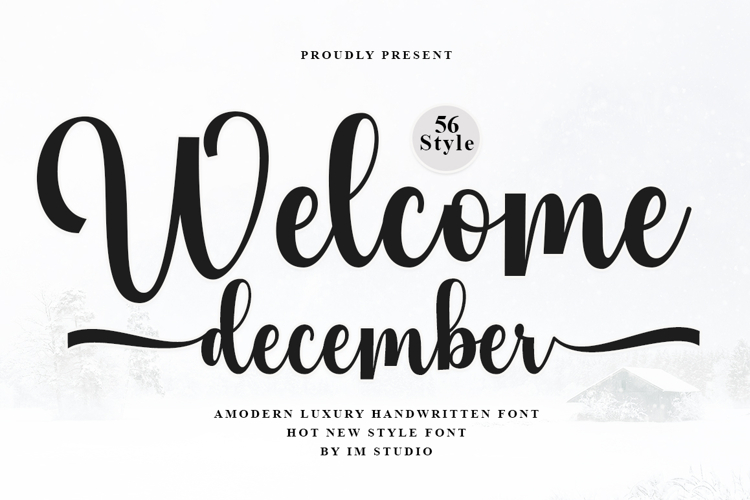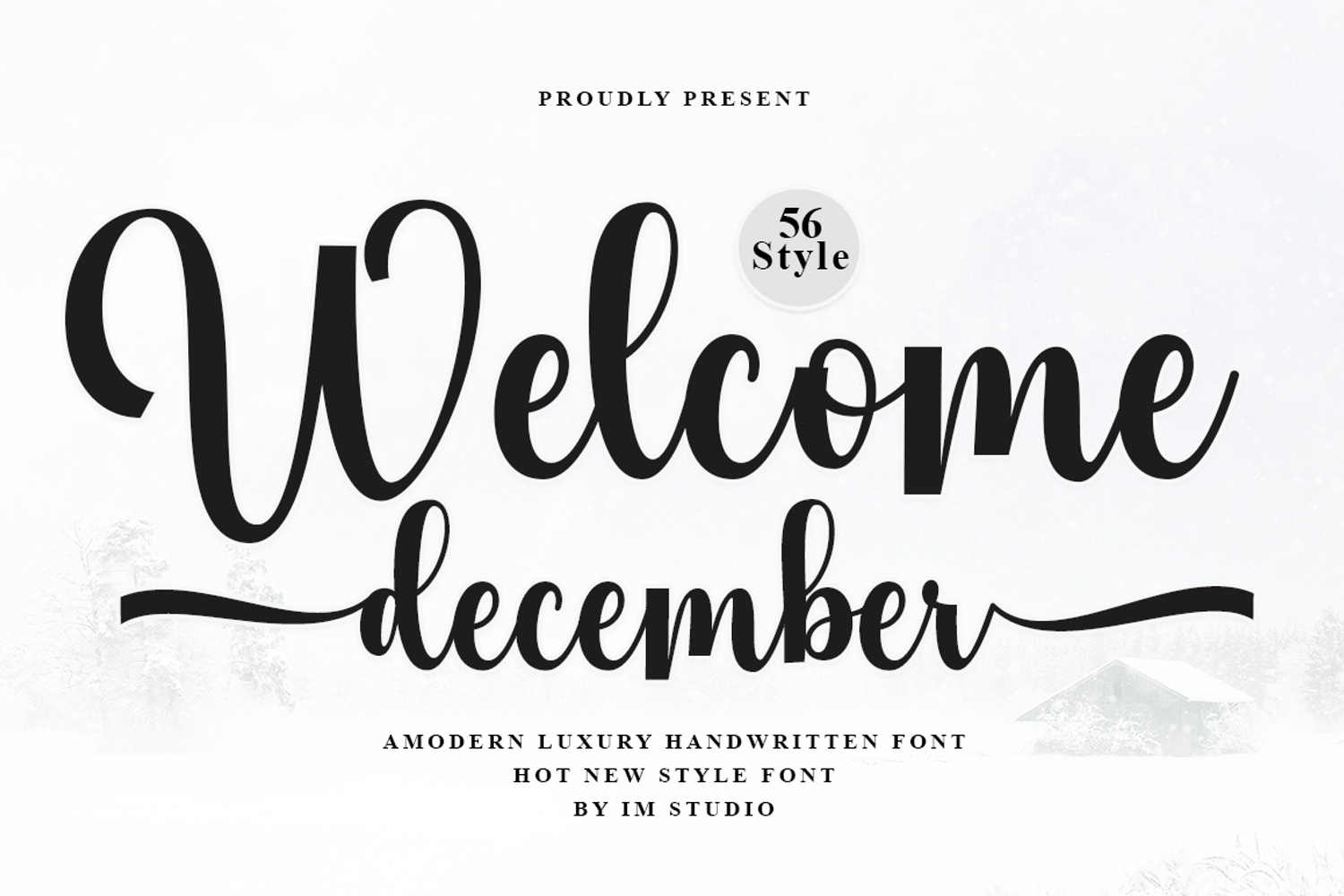
Welcome December- Family Font In 56 Styles
Welcome December- Family Font In 56 Styles !!!
Introducing the Welcome December Typeface — part of a versatile family of 56 distinctive typefaces, designed with a beautiful and elegant touch.
Welcome December stands out for its sleek, clean, feminine, sensual, glamorous, and easy-to-read style, enhanced by graceful letterjoints and gentle curves. The typeface also includes a variety of stylish alternates and ligatures for added design flexibility. Perfect for both modern and classic applications, this typeface is perfect for invitations, logos, labels, restaurant menus, fashion, beauty branding, stationery, novels, magazines, books, greeting/wedding cards, packaging, and all types of advertising projects.
56 Typeface Styles: Regular, Italic, Bold, Bold Italic, Outline, Wrap, Expanded, Condensed, Scribble, Engrave, Blur and more.
Full Character Set:
Uppercase & Lowercase
Alternatives & Ligatures
Punctuation & Numbers
Multilingual Support